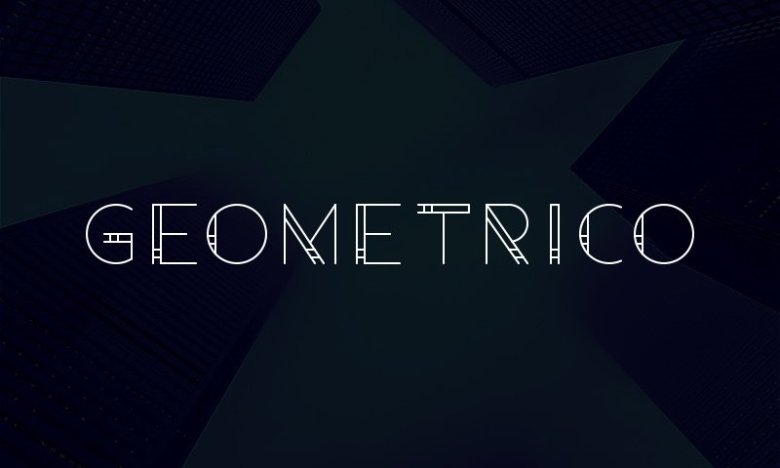
Geometrico Font
Geometrico Font is a free font and modern cool, Geometrico includes uppercase, lowercase letters and glyphs. Will give a lot of personality and style to your projects. Great for Prints, digital projects or any kind of work.